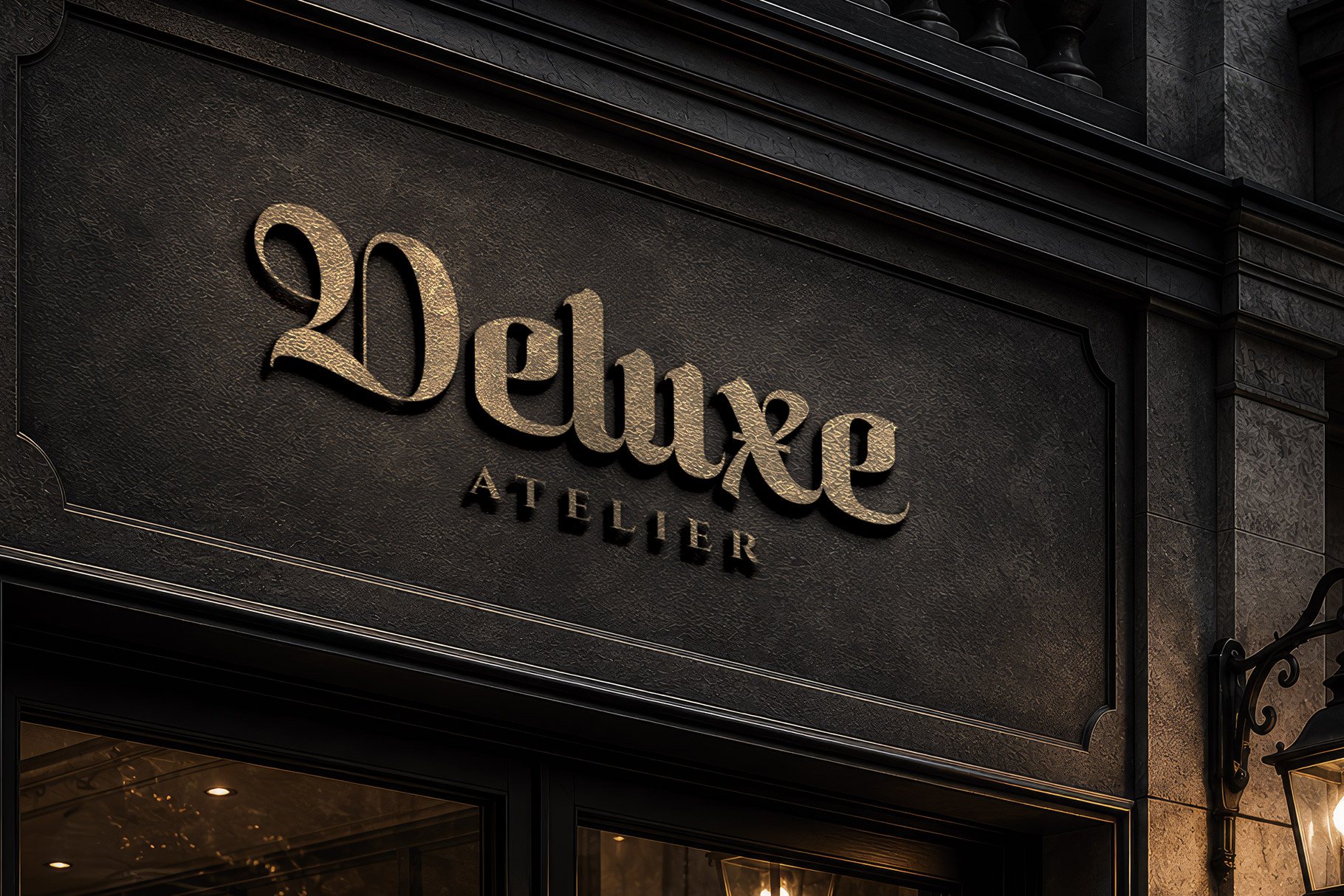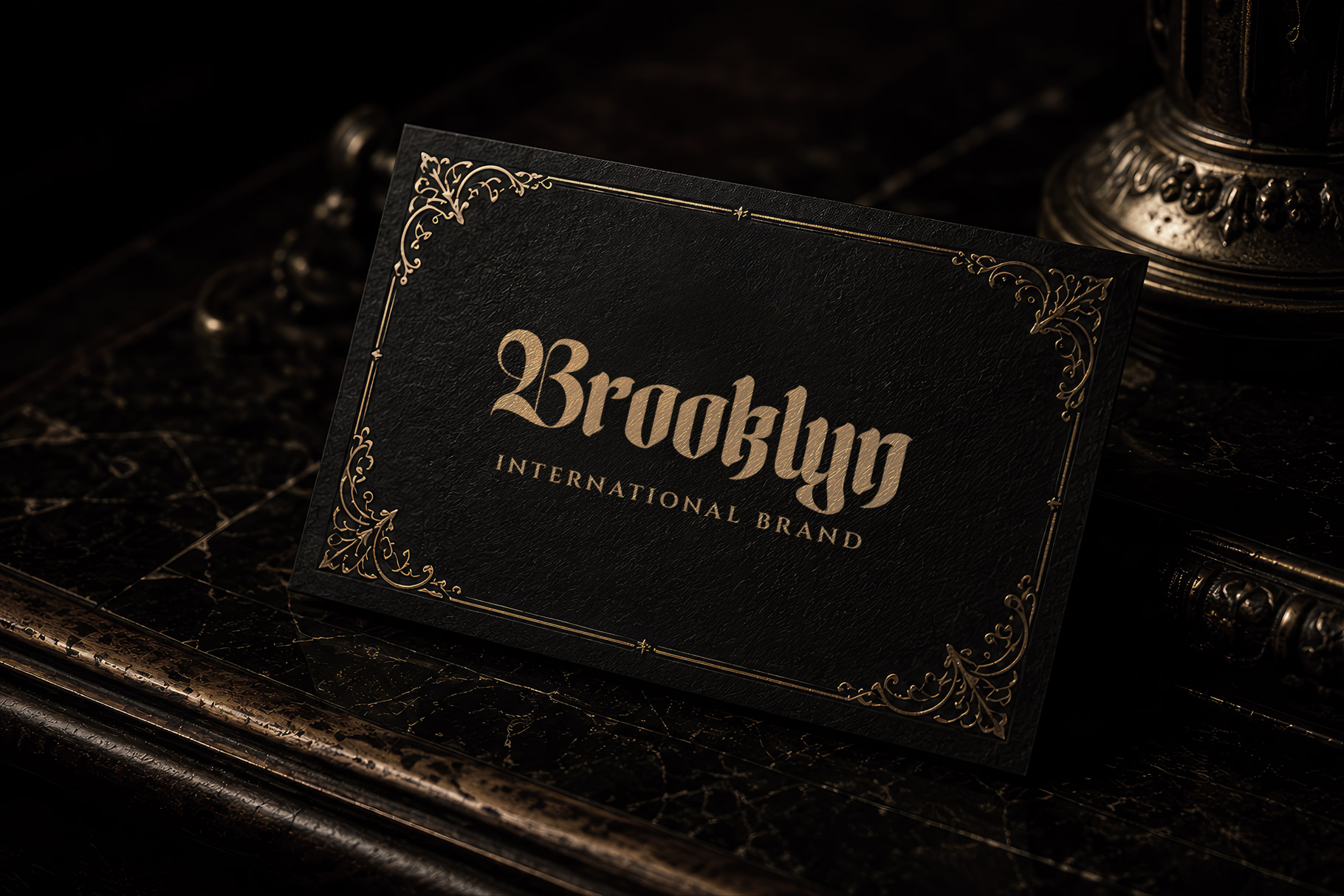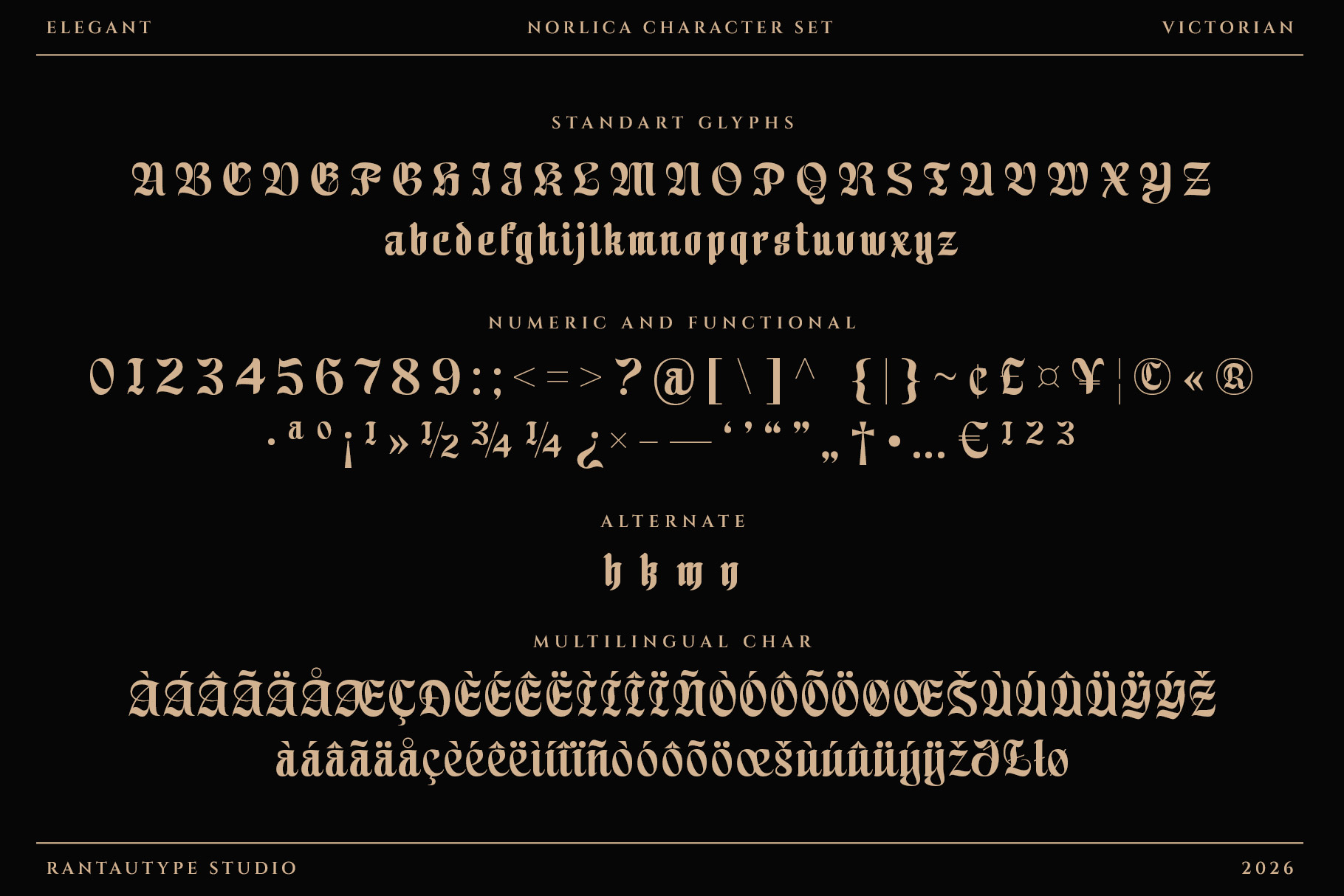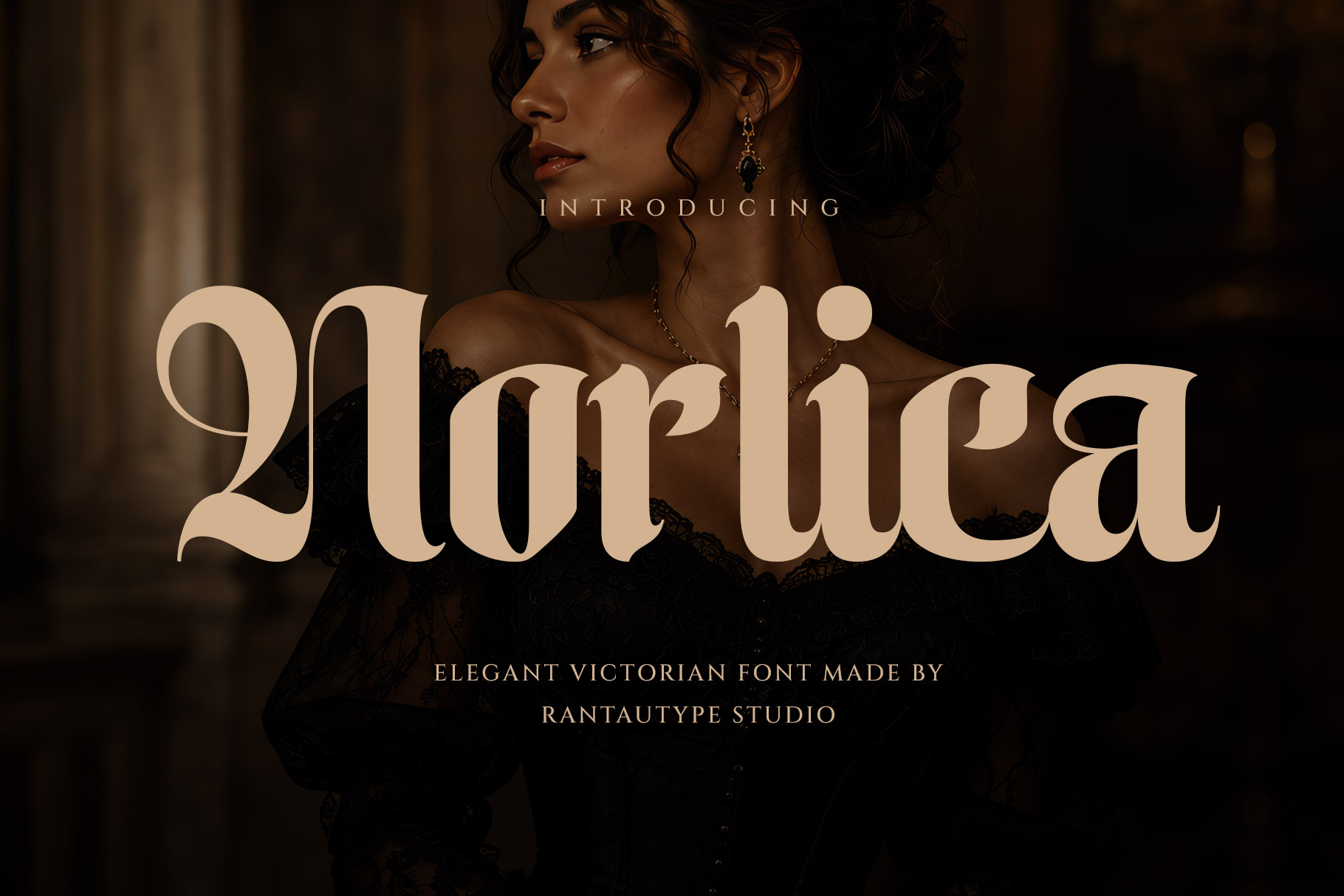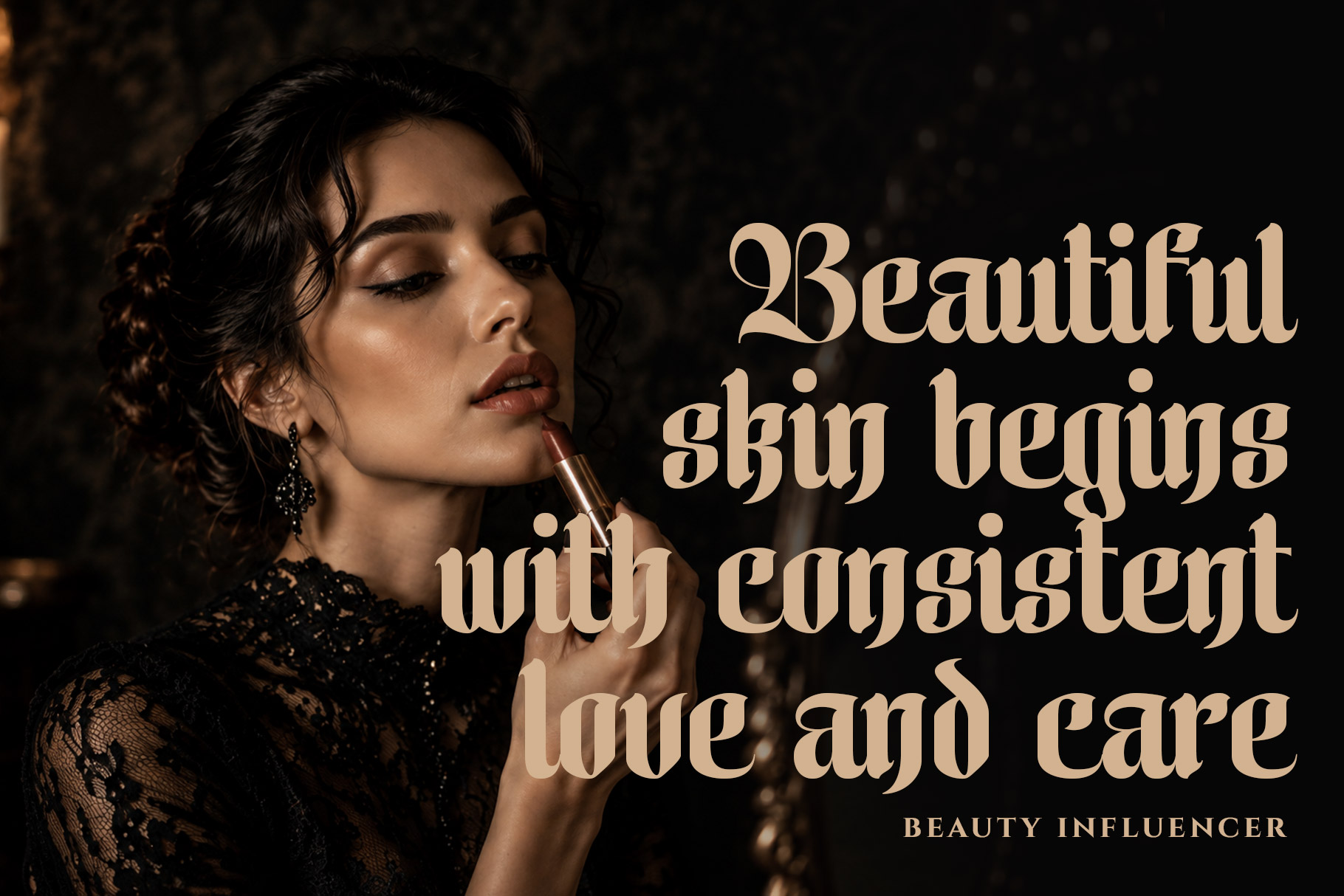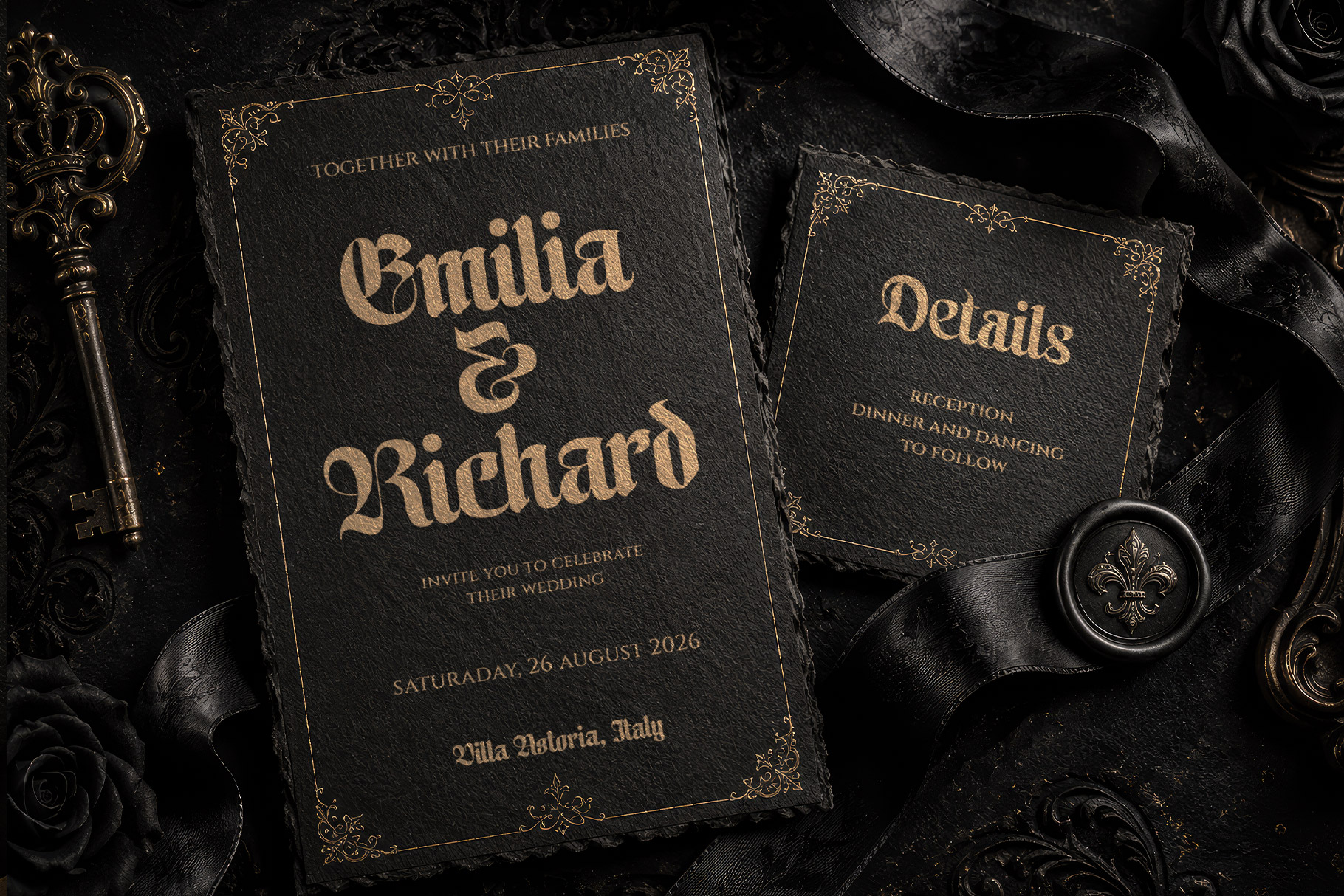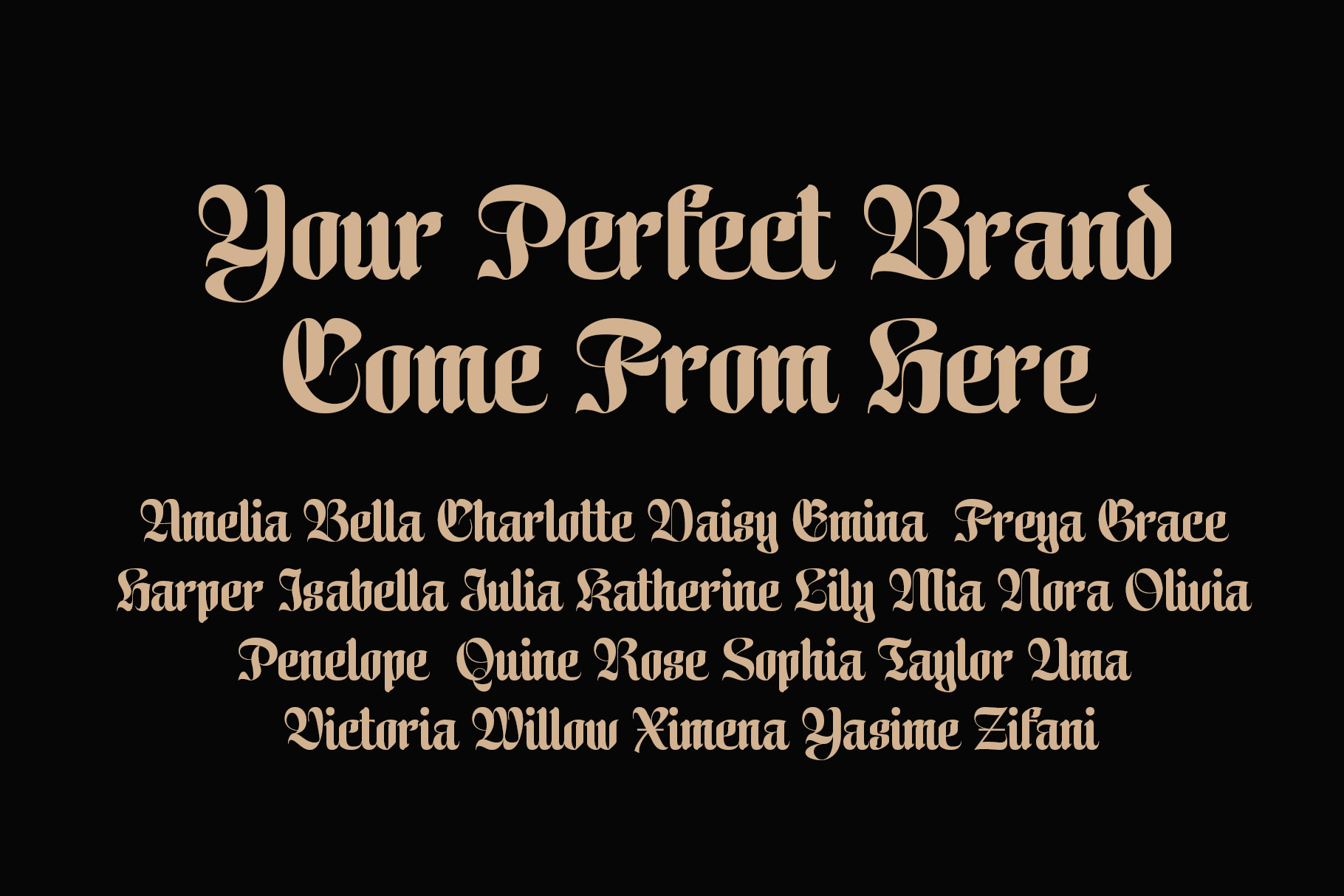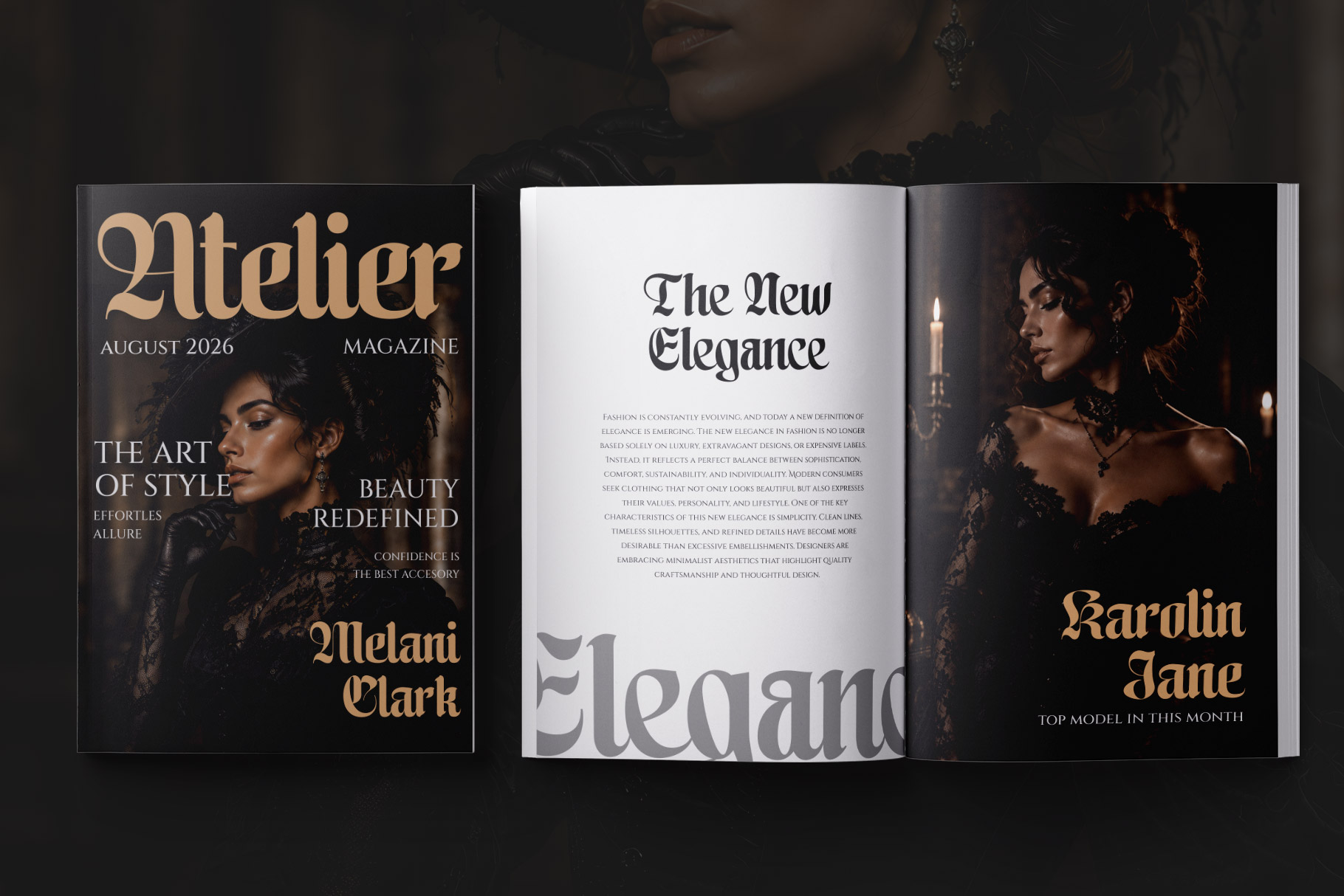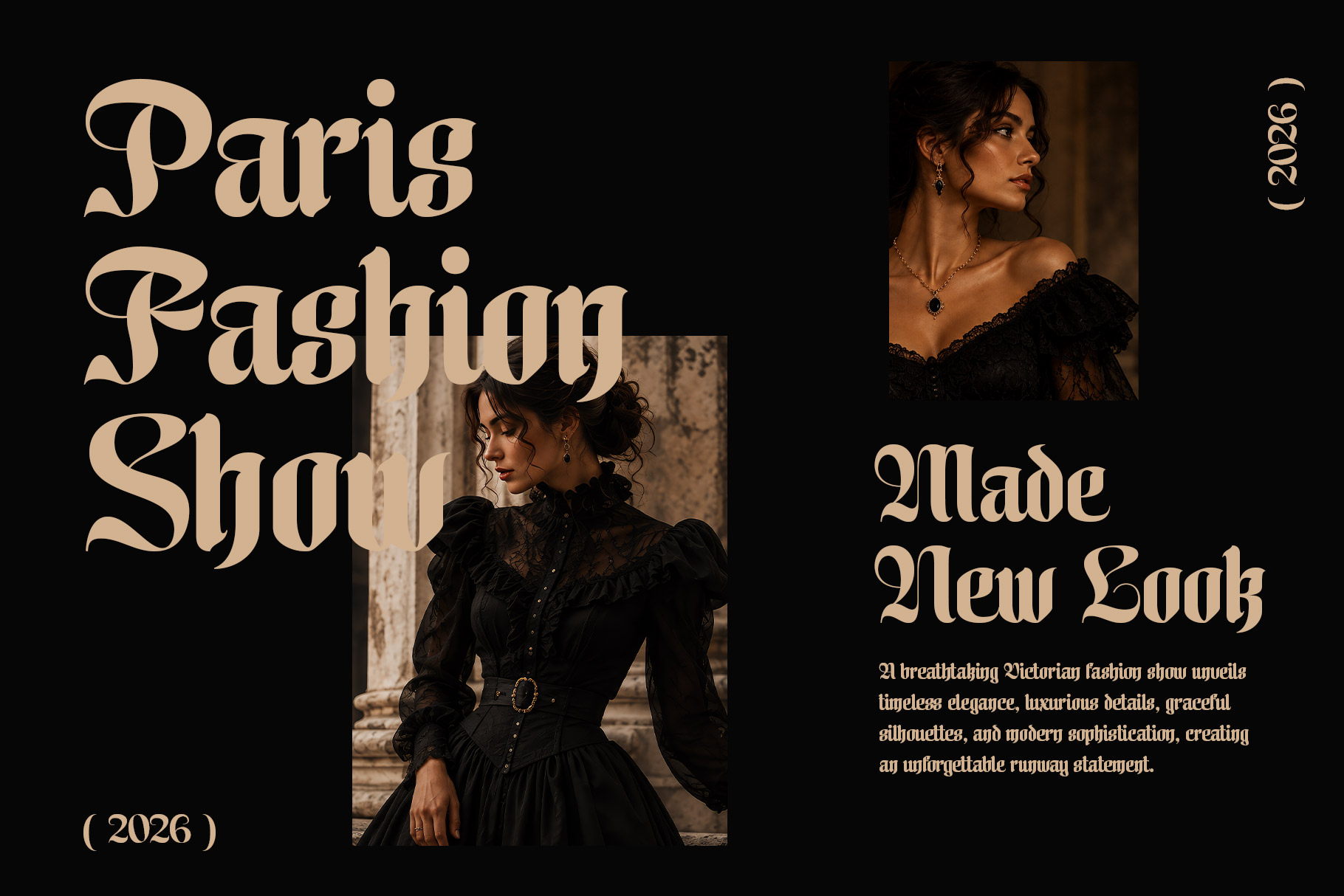
Norlica is Victorian-inspired serif typeface captures the grandeur and refinement of nineteenth-century design while embracing a clean, contemporary character. Featuring dramatic high-contrast strokes, elegant curves, and distinctive ornamental terminals, each letter conveys sophistication, luxury, and timeless beauty.
Norlica perfectly choice for any creative endeavor, creating, modern, lifestyle design such as logotype, title, cover, branding, invitations, wedding designs, display and magazine, social media posts, advertisements, printed quotes, product packaging, corporate brand, product designs, labels, photography, watermarks, special events and any other project with victorian touch.
Norlica Elegant Victorian Font